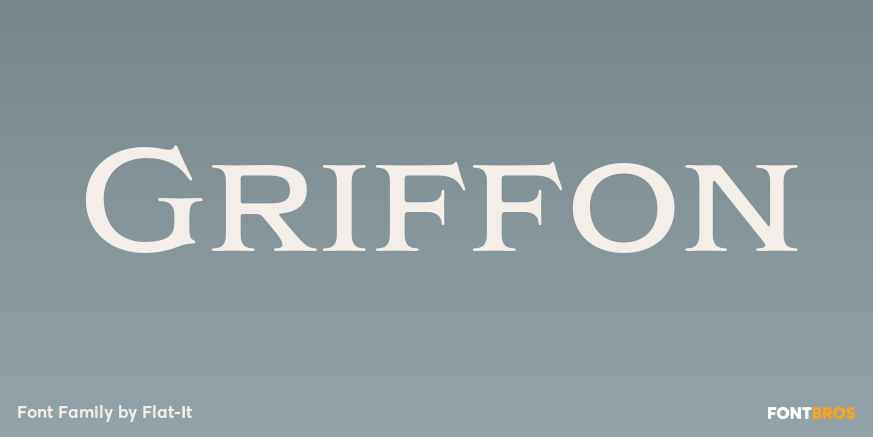
About Griffon
Griffon, titling face with influence from classic letterforms, inspired by retro faces in the early 20th century. This font family was all redesigned from scratch and now released ranging in 5 weights with small caps from Light to Bold. The powerful letterforms…